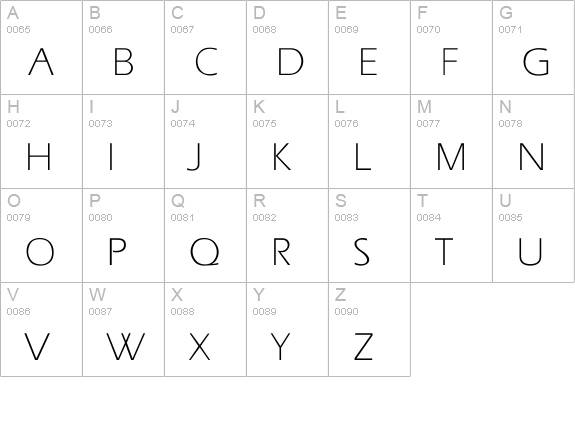
Erie_Light-Normal is the standard, neutral variant in the Erie_Light typeface family \xE2\x80\x94 well suited to general body text, paragraphs, and standard typographic work.
Erie_Light-Normal font is a modern and elegant typeface that exudes sophistication and style. Its clean lines and subtle curves make it perfect for a wide range of design projects, from branding to editorial design. The light weight of the font gives it a delicate and airy feel, making it ideal for conveying a sense of warmth and approachability. This versatile font is available for free download at FontsMarket.com, making it accessible to designers and creatives looking to add a touch of refinement to their work. Whether you're working on a logo, website, or print design, Erie_Light-Normal font is sure to elevate your project with its timeless and classy aesthetic. Download this font today and bring a touch of elegance to your designs.